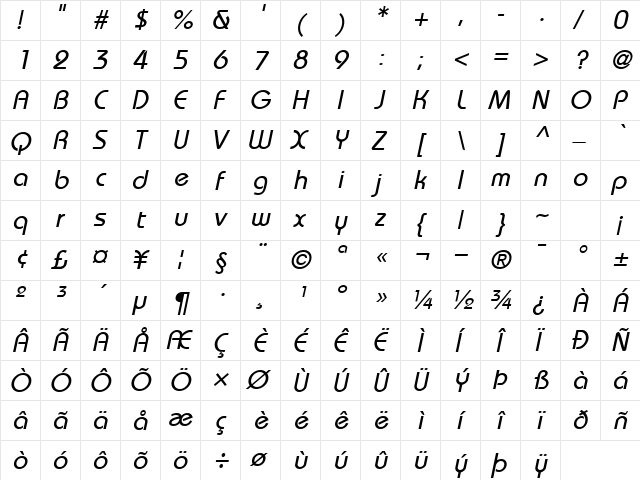
Unique Oblique Font Preview
Unique Oblique
Unique Oblique Font Details
Design Context for Unique Typeface
Unique takes a measured approach to typography — its balanced proportions and neutral character make it a reliable workhorse for both digital and print work. The slanted form adds forward momentum and visual energy.
Pro Tip: Try Unique for annotation and caption copy alongside an upright companion — the contrast in angle creates a dynamic but ordered typographic system.